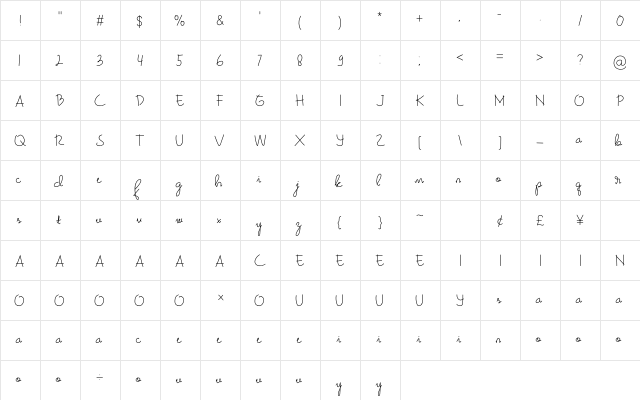
Jes Lee Regular
Design Context for Jes Lee Typeface
Jes Lee takes a measured approach to typography — its balanced proportions and neutral character make it a reliable workhorse for both digital and print work.